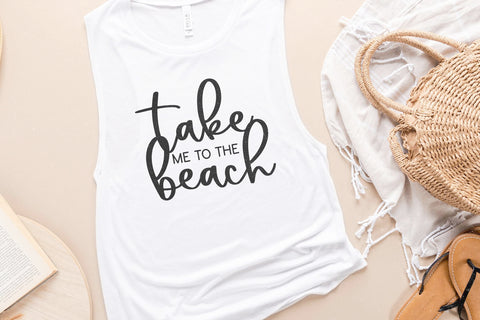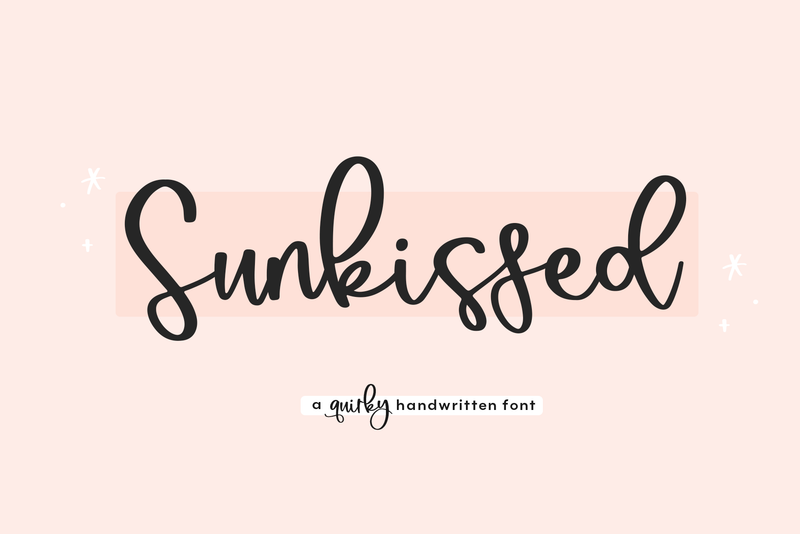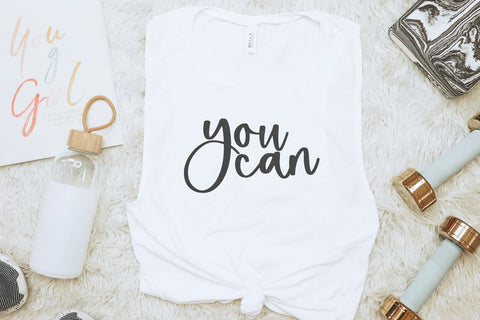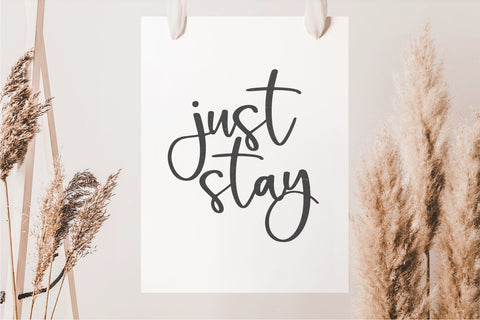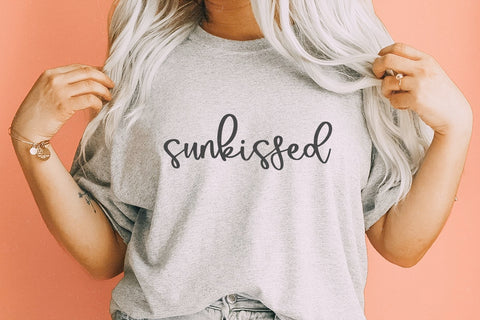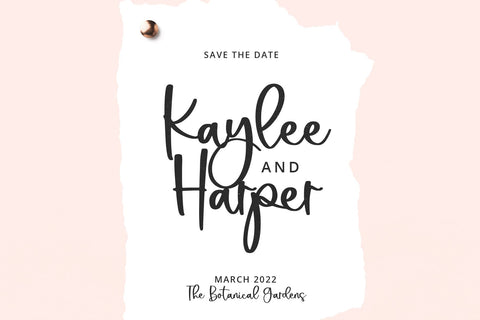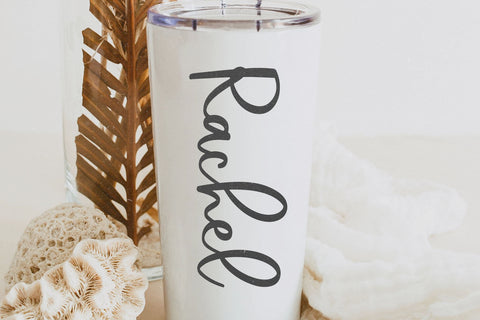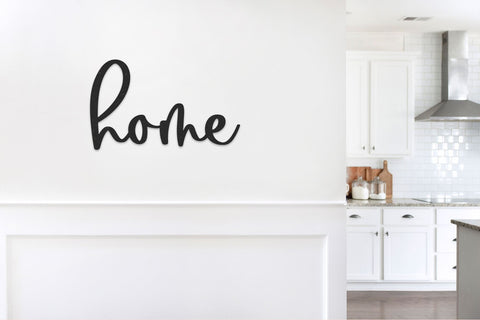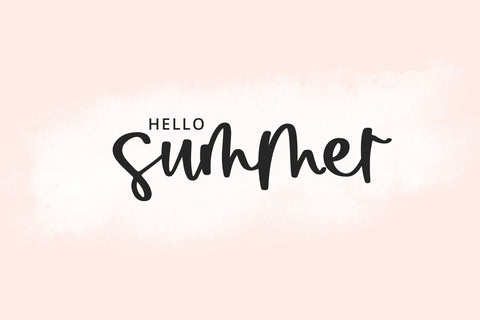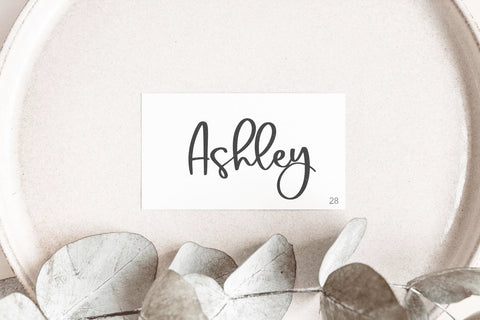
Sunkissed - Handwritten Script Font
Sunkissed is a modern handwritten script font!
This font is perfect for crafts, svg designs, stickers, procreate projects, shirts, mugs and more!